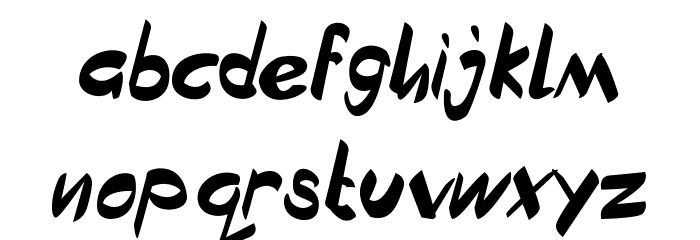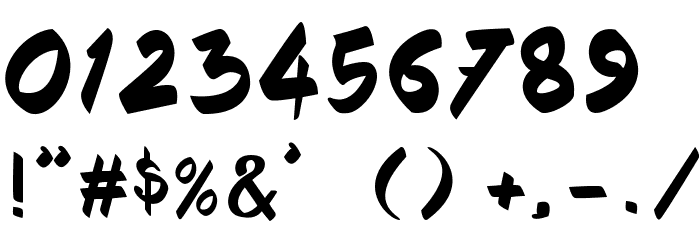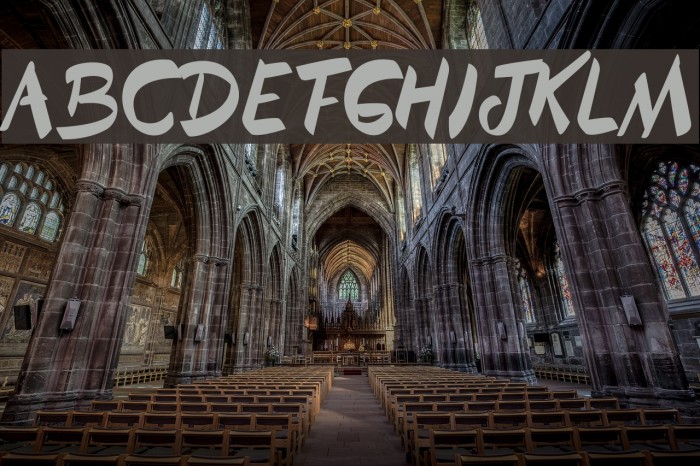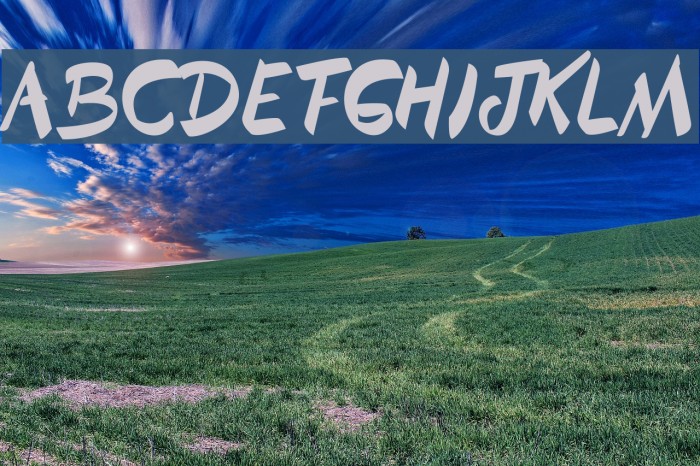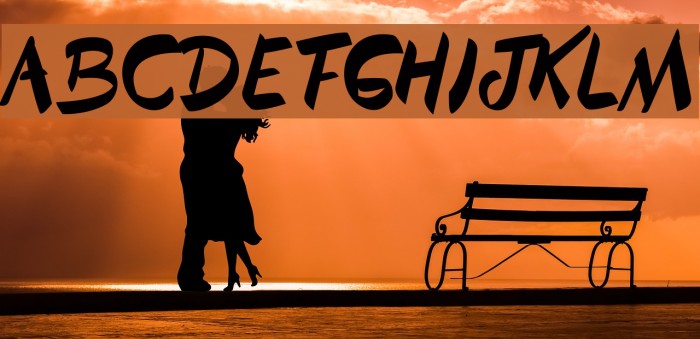
Brownies Font
This font features a dynamic and energetic style with a handwritten appearance. The characters are slightly slanted, giving a sense of movement and fluidity. The strokes are bold and varied, with some letters having sharp angles and others more rounded curves. This creates a lively and informal look, suitable for creative and playful designs. The uppercase and lowercase letters maintain a consistent style, while the numerals and special characters complement the overall aesthetic. The font's unique personality makes it stand out, ideal for projects that require a touch of individuality and flair.
A bold, handwritten-style font with dynamic, slanted characters.